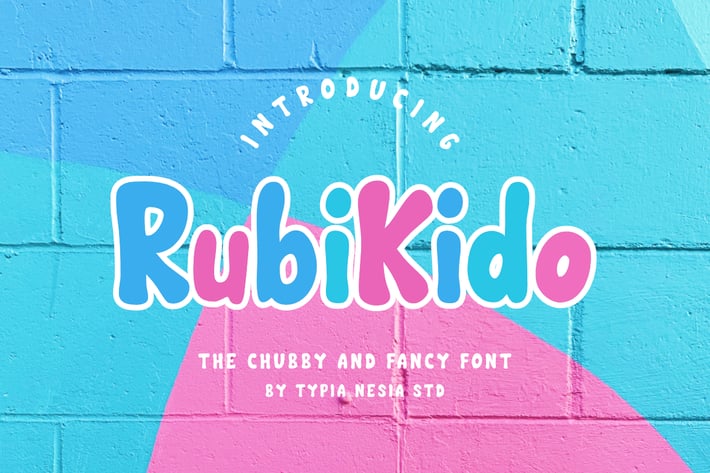
Rubi Kido Font
Rubi Kido ia a Chubby and Fancy font.
It suitable for branding, crafting quote, t-shirt, poster, packaging, book cover, display design, cards, invitation and any cute and funny typeface needs and more.